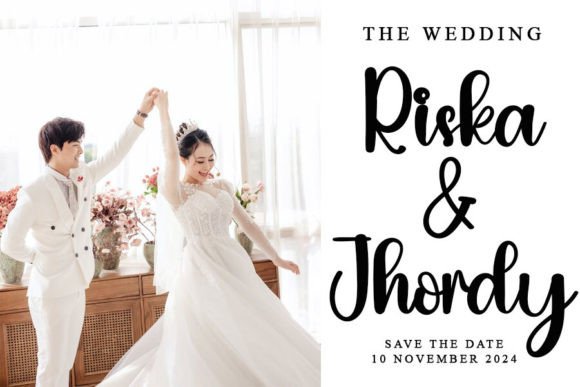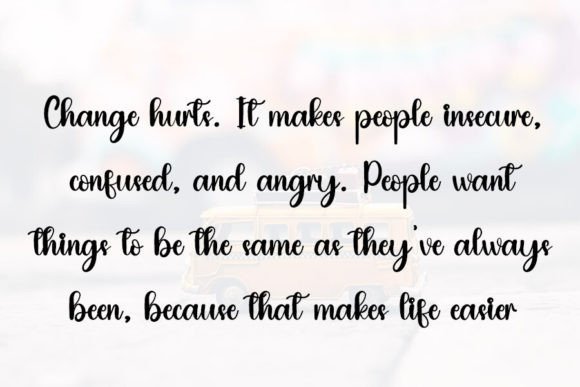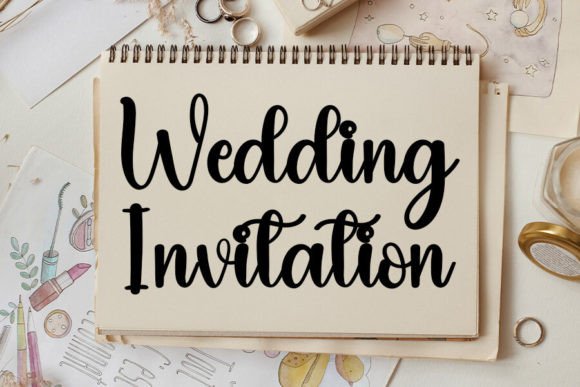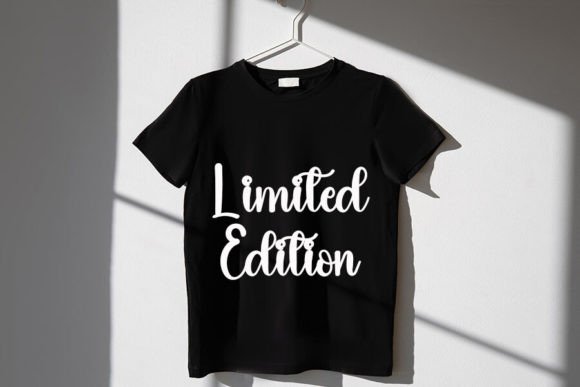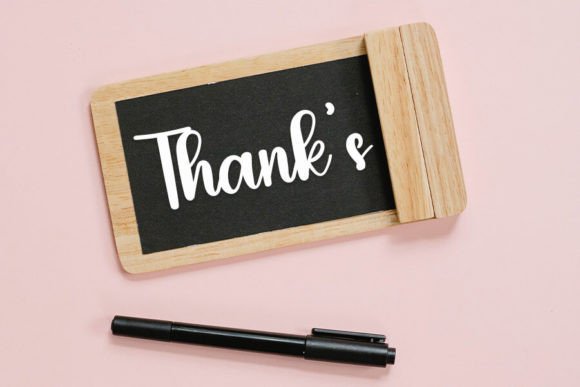
The Sweetest Touch of Elegance: Unveiling Honey Font
Have you ever stared at a blank canvas, eager to bring a creative idea to life, but struggling to find the perfect font to match your vision? I know I have! It’s that moment of frustration, when you’re about to give up, that I discovered the Honey Font. This beautiful handwritten font is a game-changer for designers and creatives alike.
Honey Font is more than just a font – it’s an artistic expression that adds a touch of elegance to any design. Whether you’re crafting a stunning Instagram post, creating a calligraphy script for a DIY project, or designing a wedding invitation, this font will help you turn your idea into a masterpiece. With its unique blend of whimsy and sophistication, Honey Font is a valuable asset for any designer looking to add a personal touch to their work.
- Unique Characteristics: Honey Font features a distinctive, modern design with a unique blend of geometric and organic elements, making it suitable for a wide range of applications, from body text to display typography.
Honey Font Review
As a designer, I was excited to dive into the Honey Font and see what it had to offer. Overall, I found it to be a solid choice for typography enthusiasts.
- Unique Character: Honey Font has a distinct character that sets it apart from more common fonts. Its irregular shape and lines make it perfect for those looking to add a touch of whimsy to their designs.
- High-Quality Rendition: The font is well-crafted and is rendered smoothly in most environments. I noticed no significant issues with legibility or clarity.
- Customization Options: Honey Font offers a range of styles and weights, giving designers the flexibility to customize their designs to suit their needs.
- Limited Font Families: While Honey Font offers a range of styles and weights, it falls short in terms of font families. This may be a concern for designers working on large-scale projects.
- Not Suitable for Body Text: Due to its unique character and irregular lines, Honey Font may not be the best choice for body text or extended blocks of text.
In conclusion, Honey Font is a solid choice for designers looking to add a touch of personality to their work. While it may have some limitations, its unique character and high-quality rendition make it a valuable addition to any design toolkit.
Honey Font is commonly used for:
- Home decor and design
- Children’s products and packaging